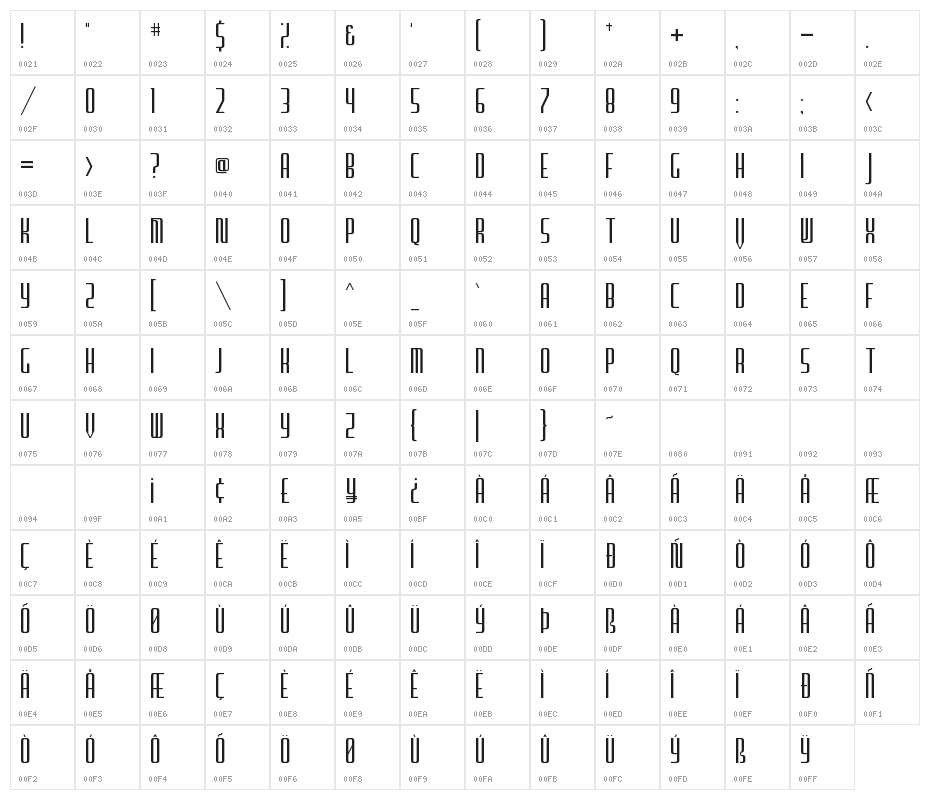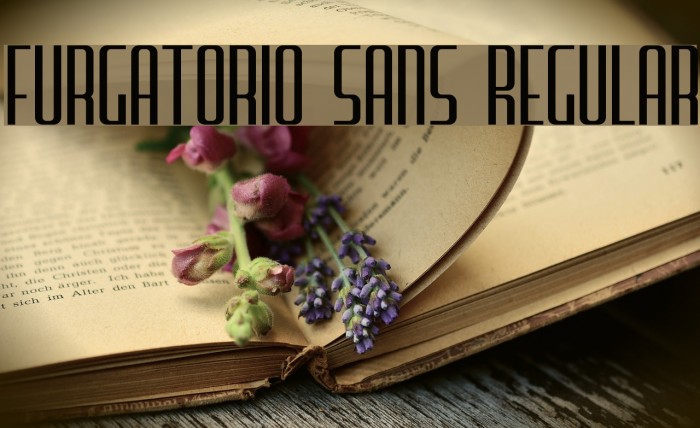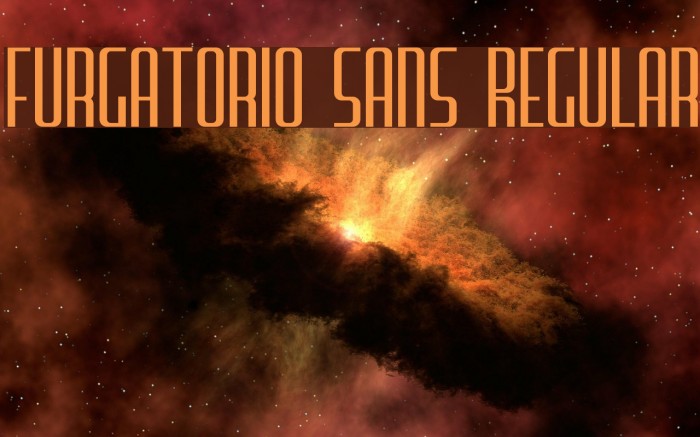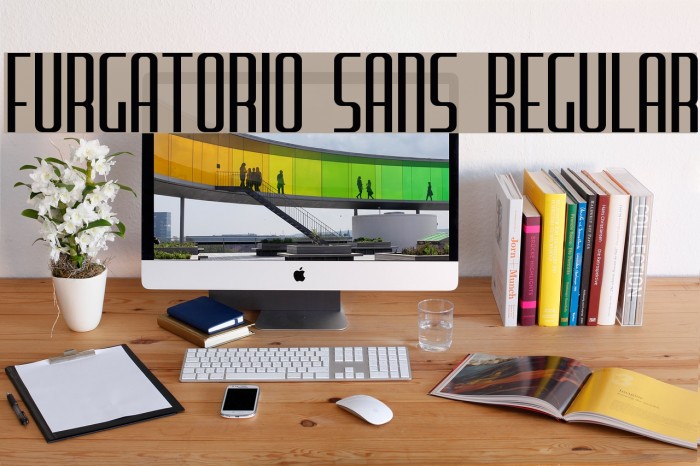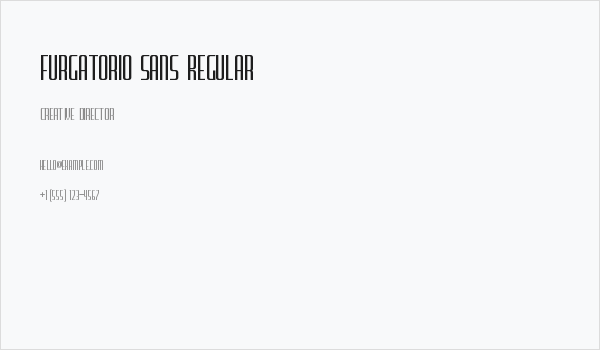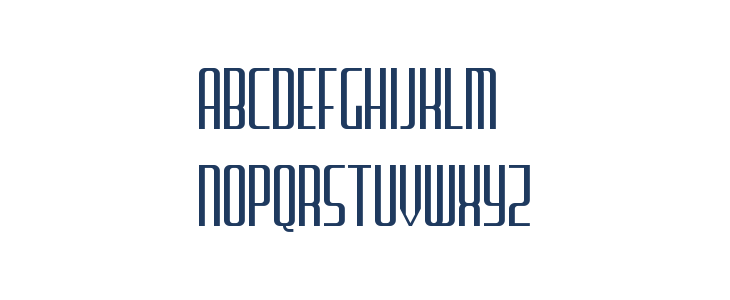
Furgatorio Sans Regular Font
Furgatorio Sans Regular Description
This font features a modern and sleek design with a geometric structure. The characters are tall and narrow, giving it a condensed appearance. The clean lines and uniform stroke widths contribute to its contemporary style. The uppercase letters are particularly striking, with sharp angles and a futuristic feel. The numerals and special characters maintain the same aesthetic, ensuring consistency across all glyphs. This font is ideal for projects that require a bold and distinctive look, such as branding or editorial design.
Proposed ProjectsIdeal for branding, editorial design, posters, and digital media that require a bold and modern aesthetic.